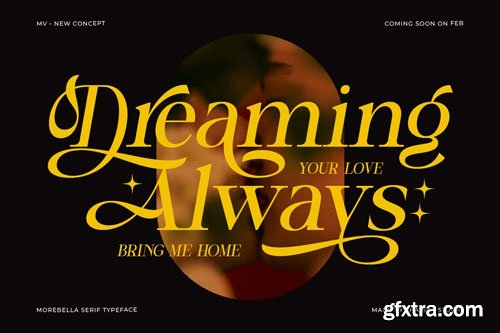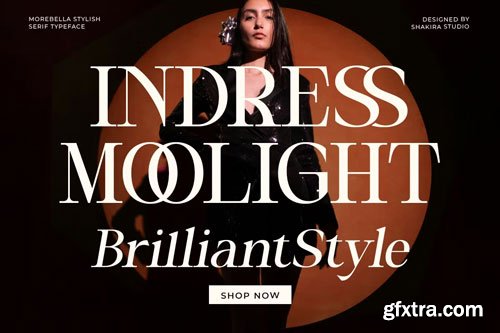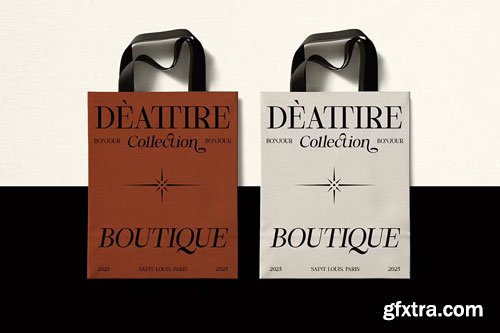
CreativeMarket - Morebella - Stylish Serif Font
Morebella is a serif typeface that exudes elegance and luxury. With Regular and Italic variants, along with stylish alternates and ligatures, this font is perfect for high-end design projects such as branding, posters, magazines, and print materials. Designed for graphic designers and branding professionals, Morebella offers high flexibility and precise details. Elevate your designs with Morebella, and make every project stand out with a timeless, elegant touch.